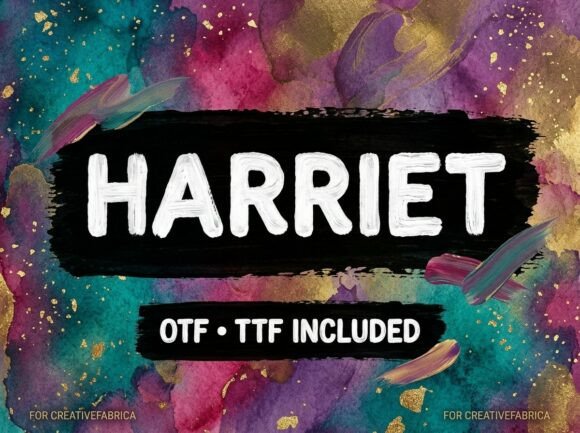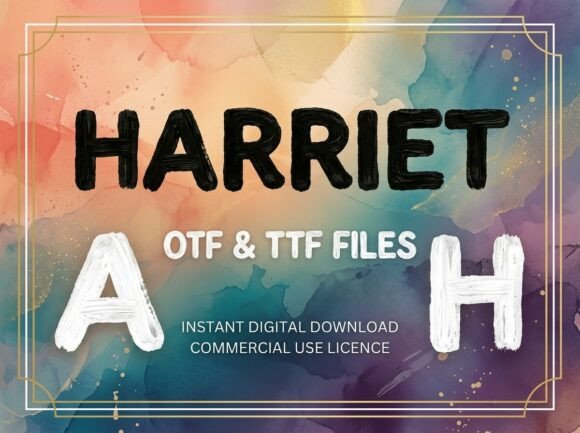
Unleash Your Inner Artist with Harriet Font
Are you a designer, artist, or crafter looking for a typeface that embodies creativity and self-expression? Look no further than Harriet, a bold display sans-serif font that captures the essence of a “creative-and-expressive” soul. With its unique blend of thick, rounded letterforms and realistic oil paint texture, Harriet is the perfect choice for anyone looking to add a touch of artistic flair to their projects.
The Inspiration Behind Harriet
Harriet font is meticulously crafted with a realistic oil paint texture, showcasing every tactile bristle mark and rich, impasto stroke. This handcrafted approach gives Harriet a distinctive, organic feel that’s perfect for independent art studio branding, gallery exhibition posters, creative workshop identities, and high-impact “maker-spirit” social media headers. The font’s heavy weight and rhythmic flow make it a standout choice for anyone looking to make a bold statement.
Key Features of Harriet Font
- Thick, Rounded Letterforms: Harriet’s bold, rounded letterforms are designed to make a statement. With a heavy weight and smooth curves, this font is perfect for creating eye-catching headlines and titles.
- Realistic Oil Paint Texture: The font’s oil paint texture gives it a unique, organic feel that’s reminiscent of traditional art. Every bristle mark and impasto stroke is meticulously crafted to create a truly realistic effect.
- Handcrafted Rhythm: Harriet’s handcrafted approach gives it a distinctive rhythm that’s perfect for creating artistic, expressive designs.
Harriet font is specifically designed for creative projects that require a bold, artistic statement. Whether you’re a designer, artist, or crafter, this font is perfect for:
- Independent Art Studio Branding: Use Harriet to create a bold, eye-catching brand identity for your art studio or creative business.
- Gallery Exhibition Posters: Make a statement with Harriet’s bold, artistic font, perfect for promoting gallery exhibitions and art shows.
- Creative Workshop Identities: Use Harriet to create a unique, handcrafted identity for your creative workshop or class.
- Social Media Headers: Add a touch of artistic flair to your social media headers with Harriet’s bold, expressive font.
Tips for Using Harriet Font
To get the most out of Harriet font, here are a few tips to keep in mind:
- Use it boldly: Harriet is a bold font, so don’t be afraid to use it in large sizes to make a statement.
- Experiment with colors: The oil paint texture of Harriet looks great in a variety of colors, so don’t be afraid to experiment and find the perfect hue for your project.
- Pair it with contrasting fonts: Harriet’s bold, artistic style pairs well with contrasting fonts, such as elegant serif fonts or simple sans-serifs.
Harriet font is a unique, bold display sans-serif that’s perfect for designers, artists, and crafters looking to add a touch of artistic flair to their projects. With its thick, rounded letterforms, realistic oil paint texture, and handcrafted rhythm, Harriet is the premier choice for anyone looking to unleash their inner artist. So why wait? Try Harriet font today and see how it can elevate your creative projects to the next level.